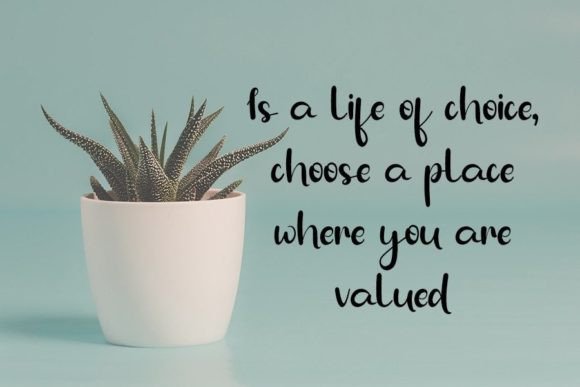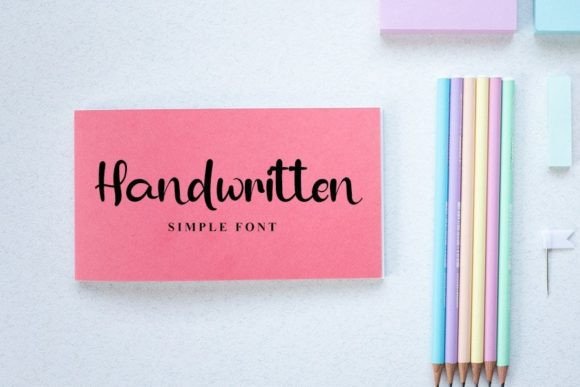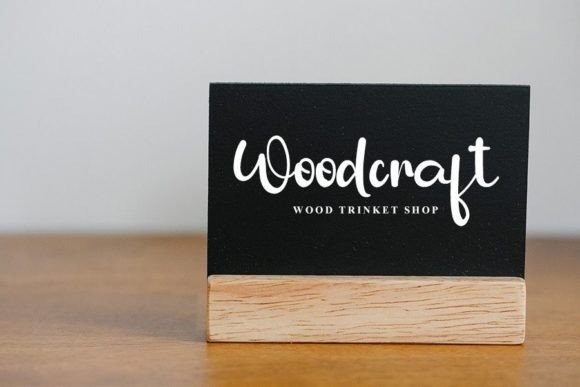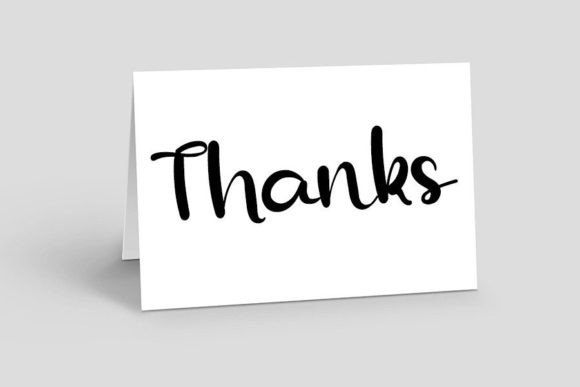
Windows Font
About Windows Font
“Windows” is a font that effortlessly blends neatness with elegance, creating a beautifully handwritten style that is perfect for a wide range of creative projects. Its distinct and timeless design adds a touch of sophistication to your text, making it suitable for various applications, including branding, invitations, posters, social media graphics, and more.
The font’s neat and well-defined letterforms exude clarity and precision, making it easy to read and visually appealing. Its elegant touch adds a sense of refinement and grace, enhancing the overall aesthetics of your designs. “Windows” captures attention with its distinct and stylish appearance, making your projects visually striking and memorable.
The beauty of “Windows” lies in its ability to adapt to different design contexts while maintaining its elegant charm. Whether used for formal invitations or casual social media posts, this font elevates the visual appeal of your content. Its timeless style ensures that your designs have a classic and enduring quality, making them relevant for a wide range of applications.
Embrace the distinctiveness of “Windows” and let it inspire your creativity. Its unique charm and elegance make it a versatile choice for designers seeking a font that combines sophistication with clarity. Fall in love with its neat and beautiful handwritten style, and watch as it transforms your creative visions into spectacular designs. With “Windows,” you have the perfect tool to create visually stunning and captivating artworks that leave a lasting impression on your viewers.